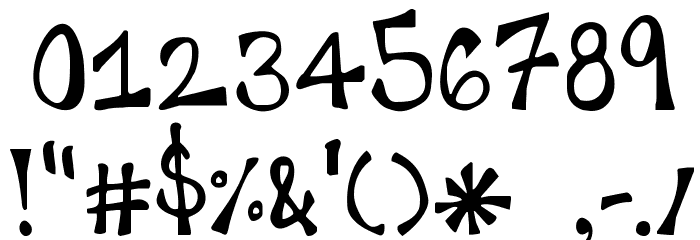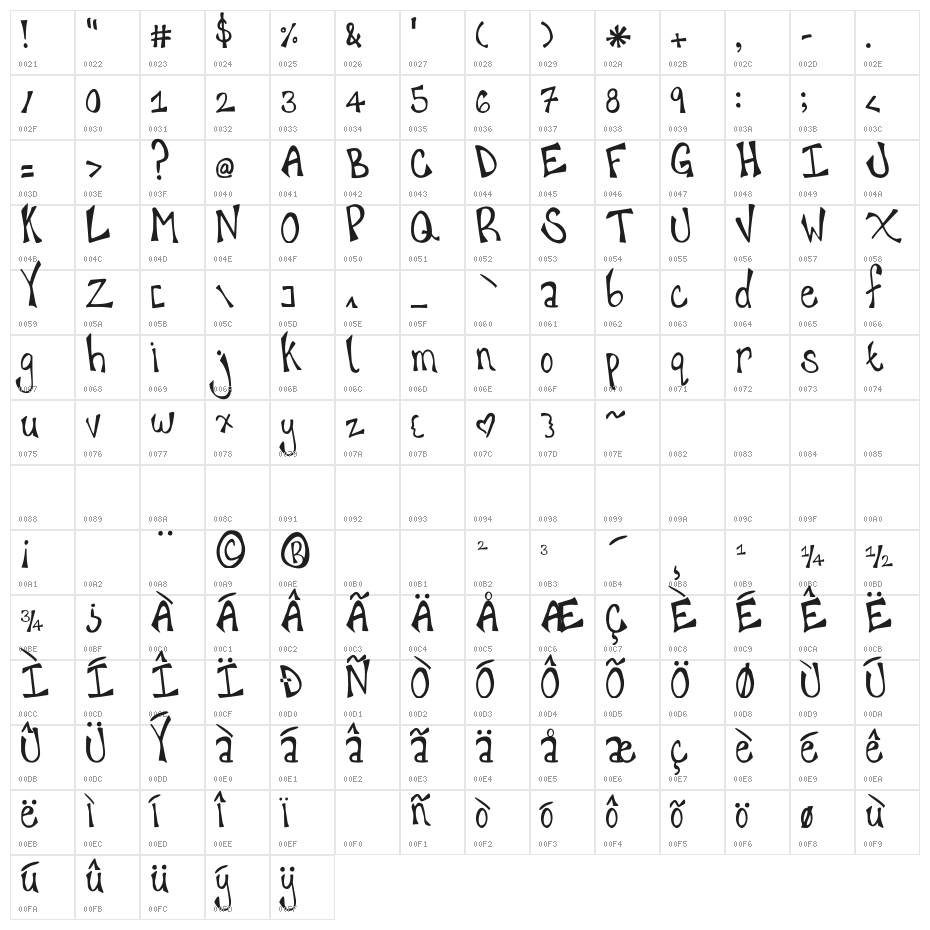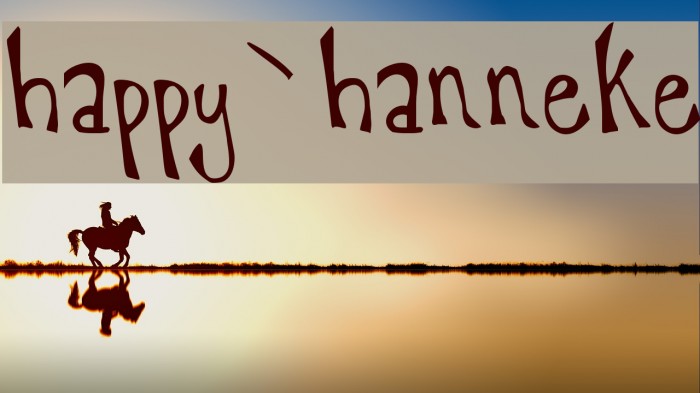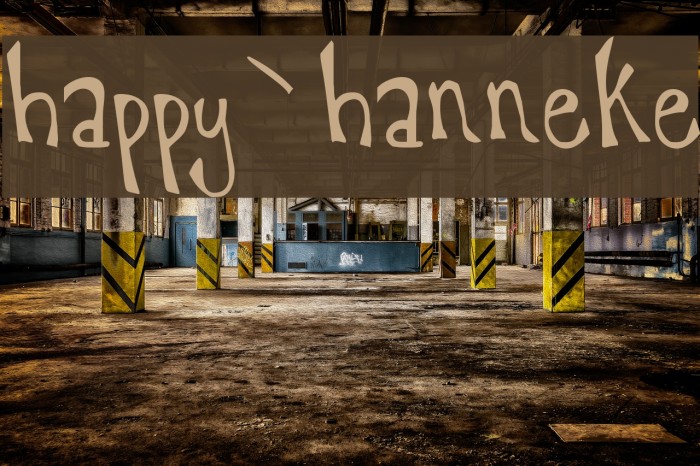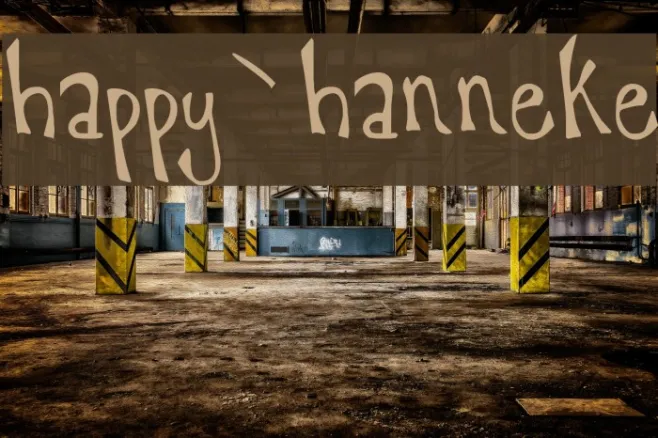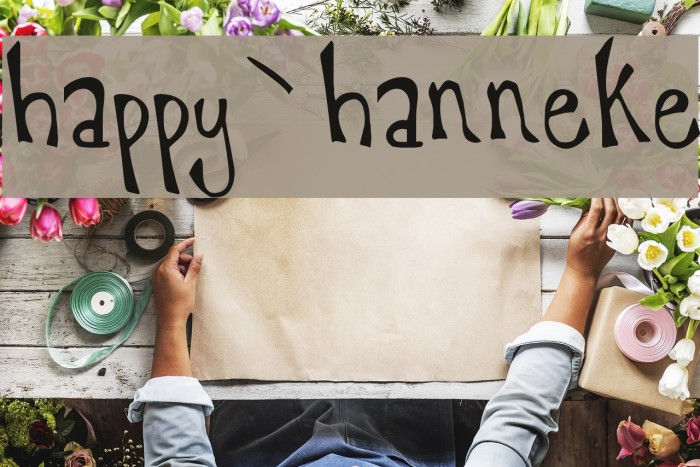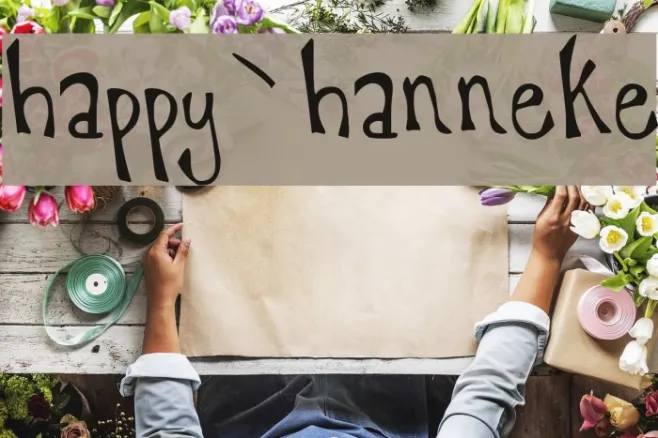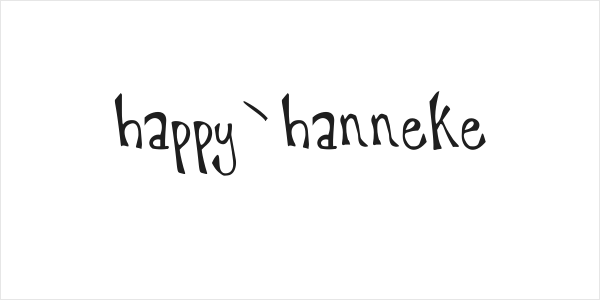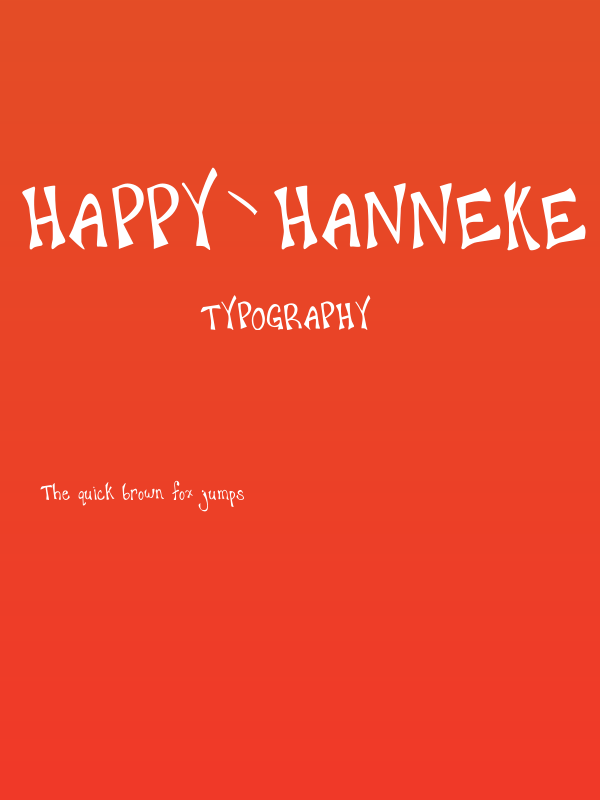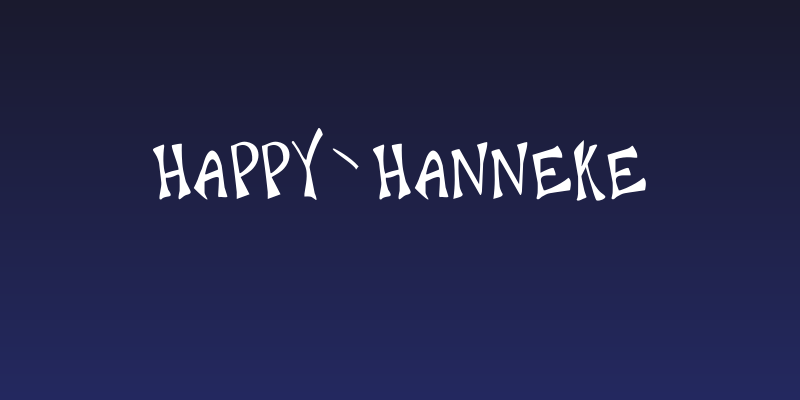
happy`hanneke Font
happy`hanneke Description
This font features a playful and whimsical design, characterized by its irregular and quirky letterforms. The uppercase letters exhibit a lively, hand-drawn style with varying stroke widths, giving each character a unique personality. The lowercase letters maintain this playful aesthetic, with some letters having exaggerated curves and angles. The numerals and special characters follow suit, adding to the overall charm and informal feel. This font's distinctive style makes it stand out, perfect for projects that require a fun and engaging visual element.